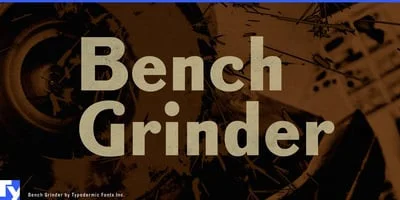
Bench Grinder Font
Bench Grinder Font is perfect for tool manufacturers, workshop signage, industrial equipment catalogs, metalworking companies, construction branding, automotive garages, machinery advertising, heavy-duty applications, and rugged industrial communications. This robust typeface brings mechanical strength and workshop authenticity to projects requiring industrial toughness and blue-collar credibility.
What makes Bench Grinder Font exciting is its industrial grit that embodies the hardworking spirit of manufacturing and mechanical craftsmanship with uncompromising durability and authentic workshop character that resonates with skilled tradespeople. The font features bold, sturdy letterforms with mechanical precision and industrial strength that reflects the reliability of professional-grade equipment and workshop excellence. Its rugged personality and utilitarian nature make it irresistible for industrial brands seeking typography that communicates reliability while honoring the dignity of skilled manual labor and precision manufacturing.
The Bench Grinder Font family includes industrial weights and workshop styles: Regular, Medium, Bold, Heavy, and distressed variations with tool symbols and mechanical alternates. Each weight maintains the font's rugged character while offering designers complete flexibility for industrial branding and workshop design applications requiring authentic blue-collar atmosphere and mechanical credibility.
Whether you're designing for tool companies or industrial services, Bench Grinder Font provides designers with a tough, workshop-focused typeface solution. The font's industrial aesthetics and mechanical styling make it ideal for equipment manufacturers, construction companies, automotive shops, and skilled trade organizations. Its dependable presence ensures your message communicates durability and expertise while maintaining excellent workshop readability. The comprehensive character set includes tool symbols and industrial notation, making it perfect for creating powerful headlines and brand identities that celebrate skilled craftsmanship and establish credibility with audiences seeking reliable industrial solutions and professional-grade mechanical equipment.